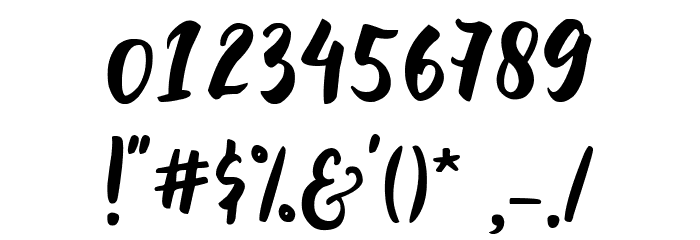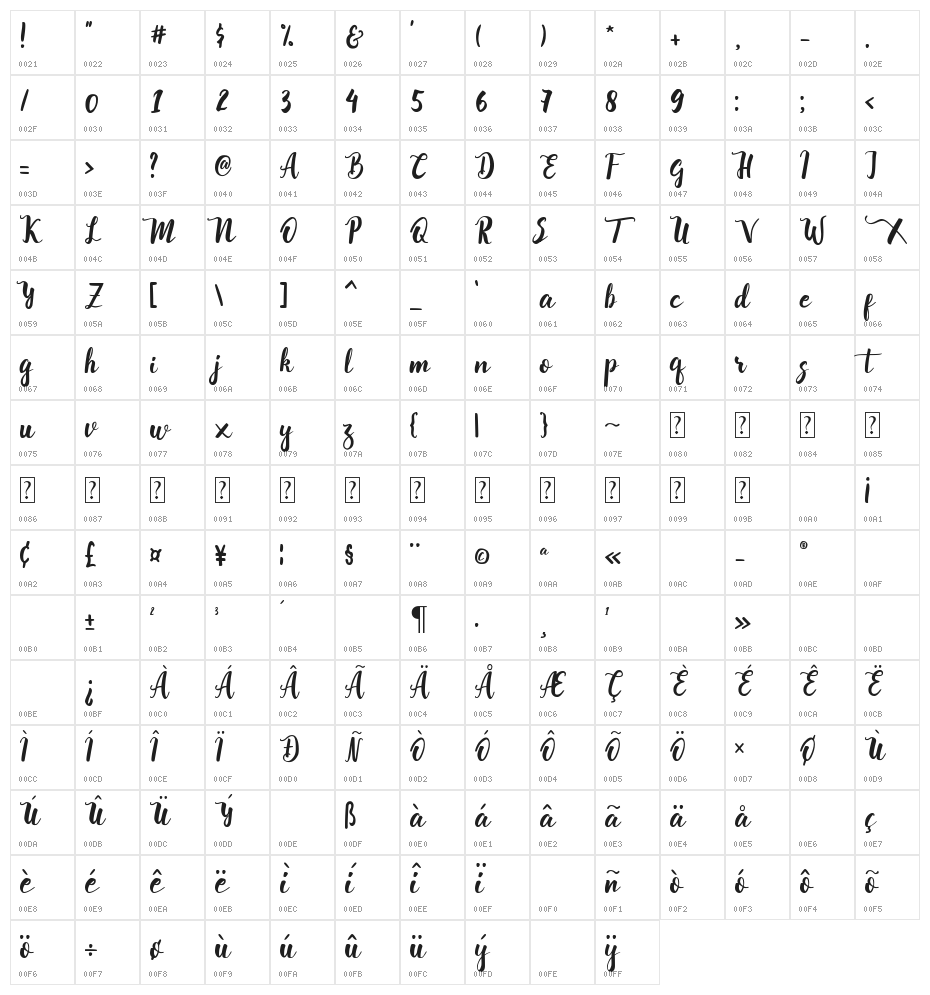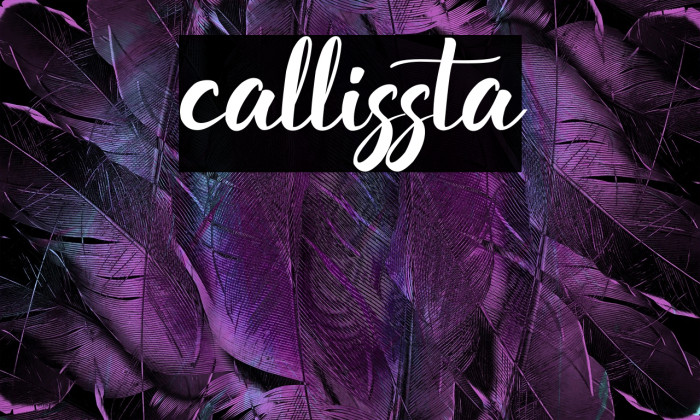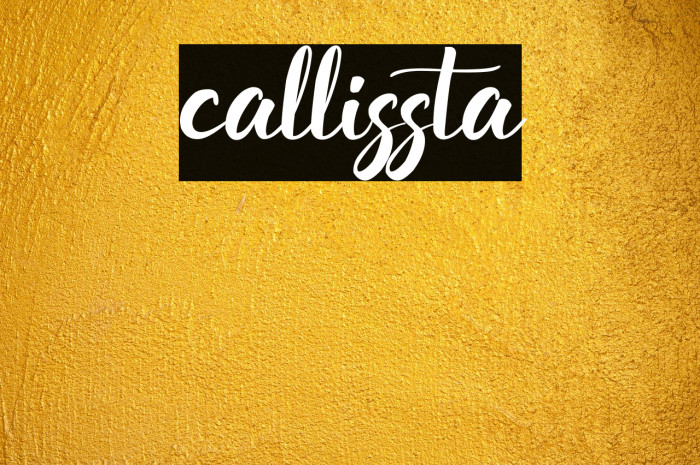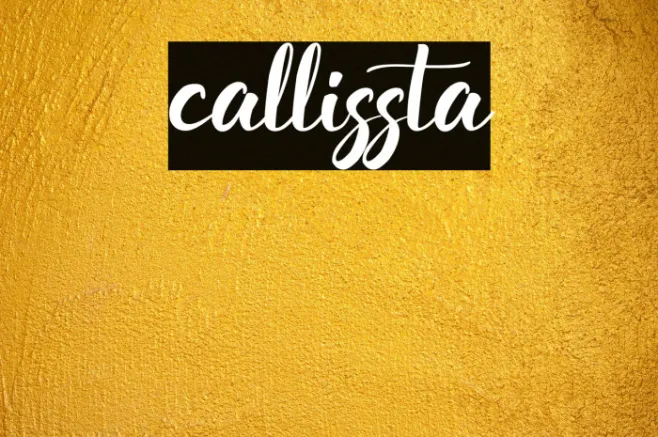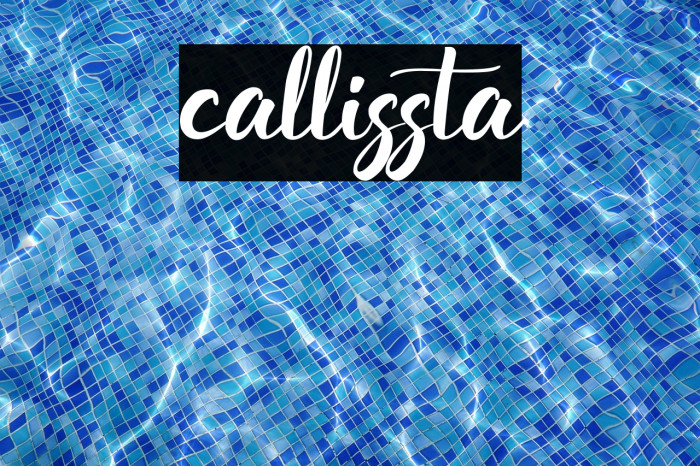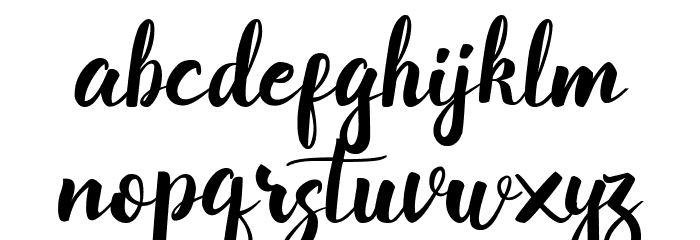
callissta Font
callissta Description
This font features a bold and expressive script style, characterized by its flowing, cursive letterforms. The uppercase letters exhibit a dramatic flair with sweeping curves and loops, while the lowercase letters maintain a consistent rhythm and elegance. The numerals are equally dynamic, complementing the overall aesthetic. Special characters are thoughtfully designed to match the script's fluidity. This font's bold strokes and high contrast make it stand out, offering a sense of movement and personality.